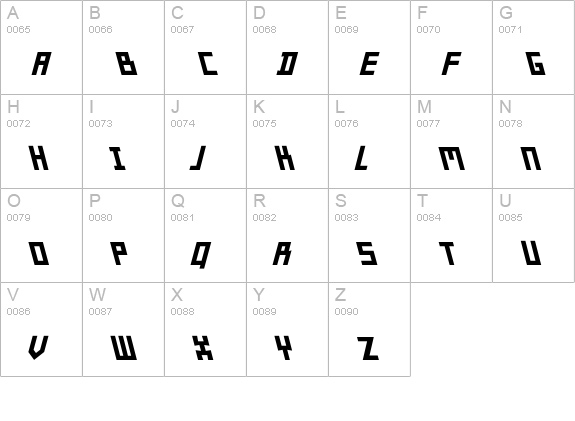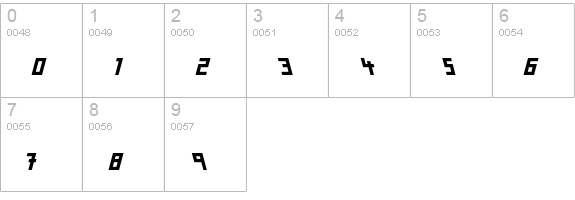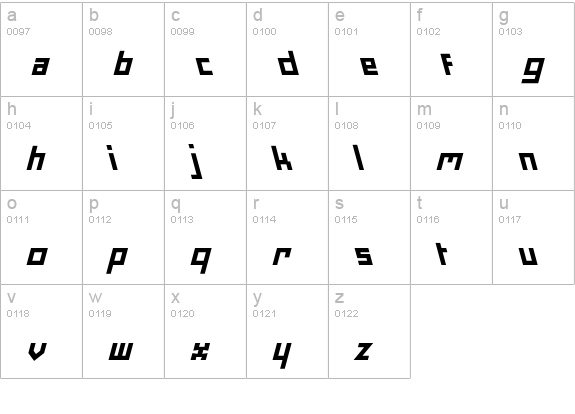
Minimum-Ivre font is a modern and sleek typeface designed for minimalist design projects. With clean lines and a contemporary feel, this font is perfect for creating a sophisticated and elegant look. Its simplicity and versatility make it suitable for a wide range of applications, from branding to editorial design. What sets Minimum-Ivre font apart is its unique blend of classic elegance and modern simplicity. The letters are beautifully crafted with just the right amount of spacing and balance, making it easy to read while also adding a touch of sophistication to any design. Best of all, Minimum-Ivre font is available for free download at FontsMarket.com. This means you can easily access this stylish typeface and use it in your projects without any cost. Whether you're a designer looking to elevate your work or a business owner in need of a fresh new look for your branding, Minimum-Ivre font is sure to impress with its timeless appeal and effortless style.